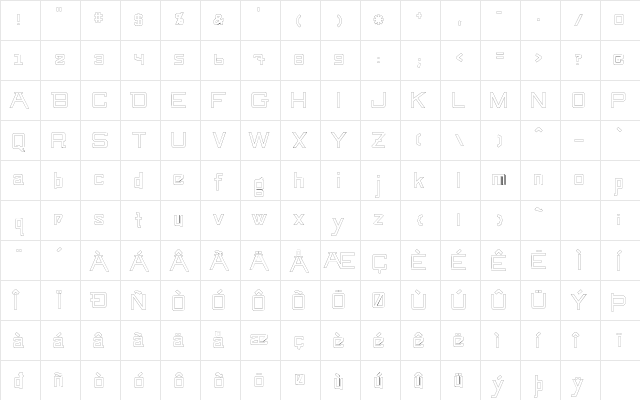
SwingarmYori-ThickHollow Regular
Design Context for SwingarmYori-ThickHollow Typeface
SwingarmYori-ThickHollow draws on military and industrial lettering traditions, with forms that communicate strength and precision.
A strong choice for security brands, outdoor gear, and high-stakes visual communication.
Font Pairing: Use alongside a condensed or geometric sans for supporting copy — keep the pairing bold, functional, and free of ornament.
Pro Tip: Try SwingarmYori-ThickHollow in all-caps for the most authentic military signage feel. It pairs well with stark, minimal layouts and muted colour palettes.